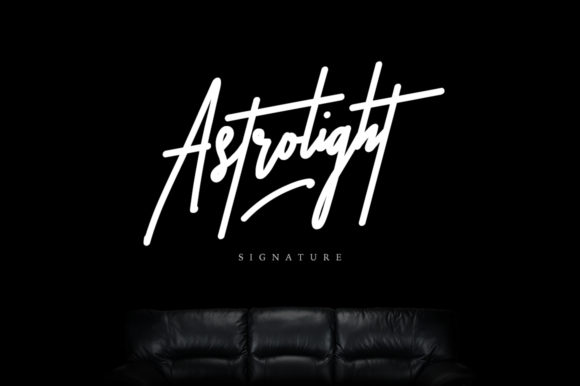
The Magical World of Astrolight Font
Have you ever been in the middle of a design project, and suddenly, the font you’ve been using just doesn’t cut it? You’re striving for that perfect blend of elegance and whimsy, but it’s just out of reach. I recall a particularly frustrating experience while working on a wedding invitation design. My client wanted something that exuded sophistication and romance, but the fonts I had at my disposal just didn’t have the right magic. That’s when I stumbled upon the Astrolight Font, a game-changer that transformed my design and exceeded my client’s expectations.
A Personal Review of Astrolight Font
As a designer, I’m always on the lookout for fonts that can elevate my work. Here’s my honest review of Astrolight:
- ✨ Elegant and Whimsical: Astrolight strikes the perfect balance between elegance and playfulness, making it suitable for a wide range of design projects.
- ✅ Versatile: From branding and headings to wedding designs, invitations, and more, Astrolight can handle it all.
- 💫 Unique Character: Each letter has a distinct personality, ensuring your designs stand out from the crowd.
While Astrolight is an exceptional font, there are a few minor considerations:
- ⚠️ Legibility at Small Sizes: Like many script fonts, Astrolight may lose legibility when used at very small sizes. It’s best suited for headlines or larger text.
- 🤔 Pairing with Other Fonts: Due to its unique style, Astrolight can be a bit tricky to pair with other fonts. Experiment with complementary fonts to find the perfect match.
The Backstory of Astrolight Font
Imagine a world where typography meets stargazing. The creator of Astrolight, a passionate typographer, was inspired by the night sky and the magic of celestial bodies. With a passion for elegance and whimsy, they carefully crafted Astrolight to bring a touch of stardust to your designs.
| Font Name | Astrolight Font |
| What makes Astrolight unique? | Its perfect blend of elegance and whimsy, along with its versatility and distinct character. |
| Is Astrolight suitable for body text? | While Astrolight is stunning, it’s best suited for headlines and larger text due to its script nature and potential legibility issues at small sizes. |